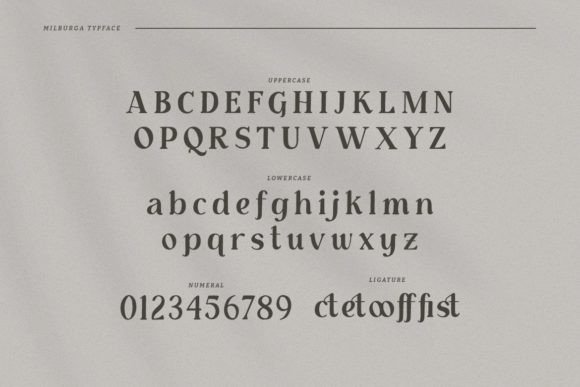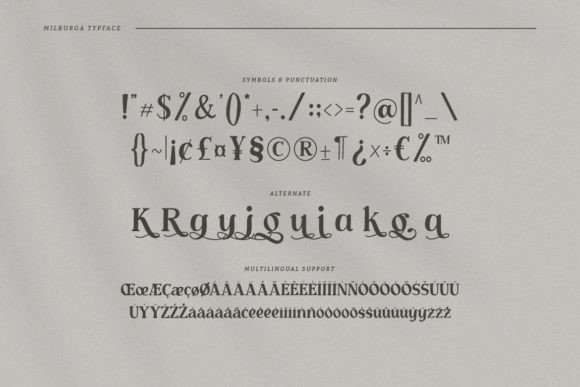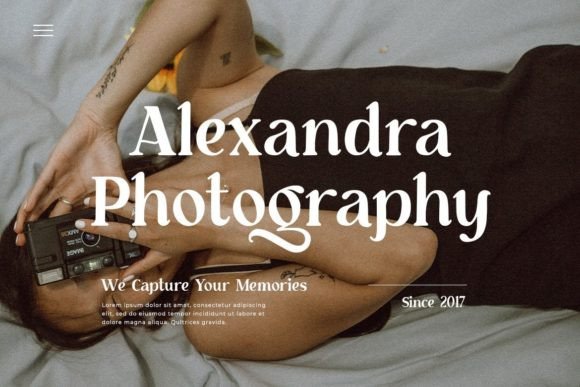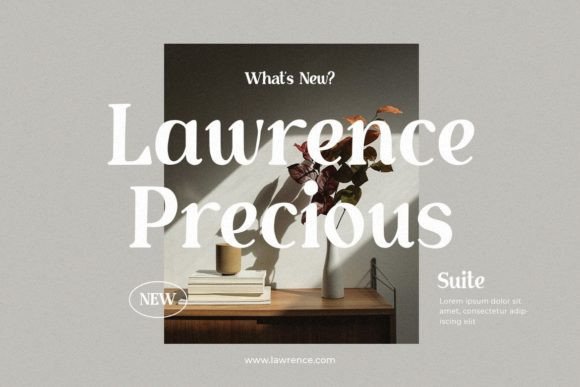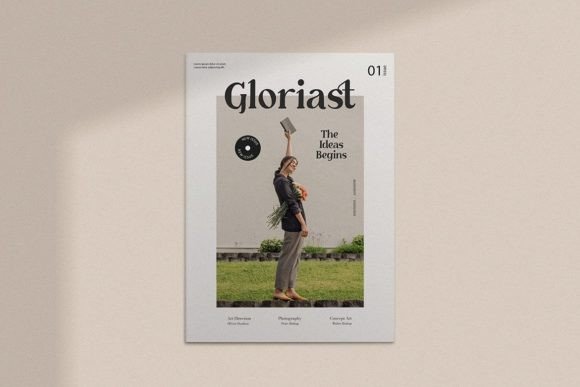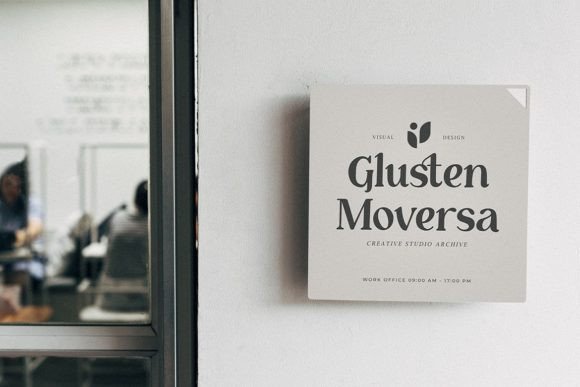
Introduction to Milburga Font Font
Fonts play a crucial role in design, and the Milburga Font font is a typeface that brings both character and versatility to any project. Whether you’re working on a branding project, a website, or a print design, the Milburga Font font offers a unique style that can elevate your work.
Milburga is a unique, stylish, and elegant serif font.
No matter the topic, this font will be an incredible asset to your fonts’ library, as it has the potential to elevate any creation .
Key Features of Milburga Font Font
Why Choose Milburga Font Font?
The Milburga Font font is more than just a typeface – it’s a design tool that helps you communicate your message with style and clarity. Its unique character set and versatile design make it suitable for a wide range of applications, from elegant invitations to bold headlines.
With its carefully crafted letterforms and balanced proportions, the Milburga Font font ensures readability and visual appeal across all mediums.
What makes Milburga Font font special?
The Milburga Font font stands out with its unique design, exceptional readability, and versatility across various design applications.